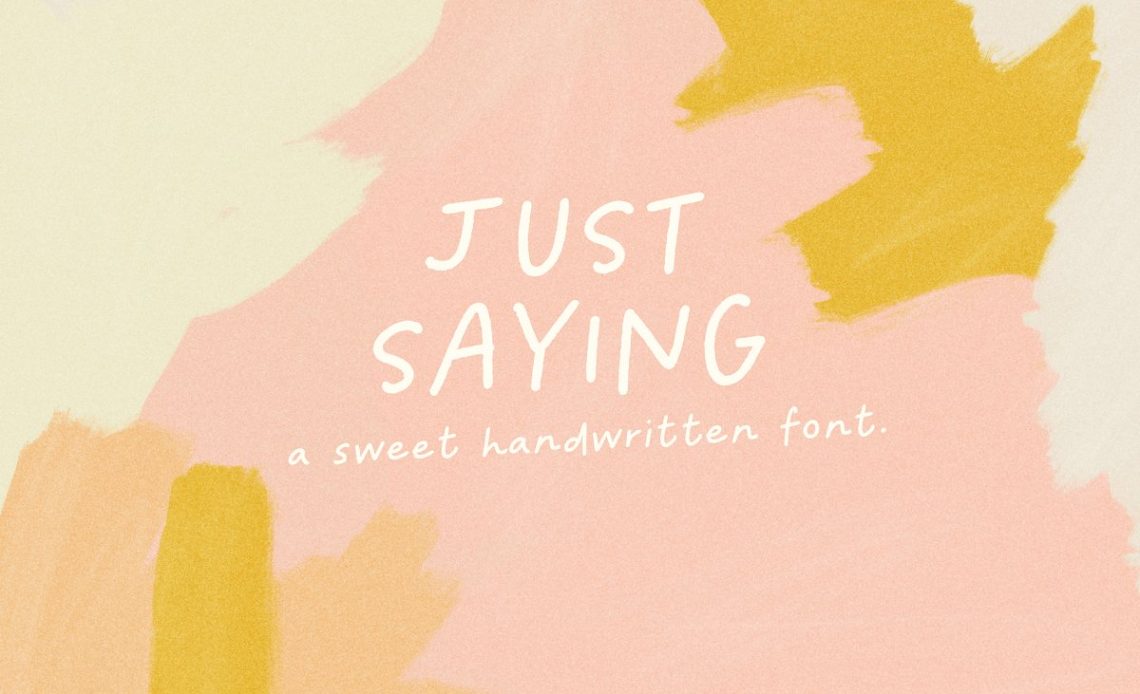
Welcome to 'Just Saying Handwritten Font' - the perfect font to add personality and charm to your designs. Created by the talented Nicky Laatz, this font family includes six unique variants that vary in weight and slant, allowing you to pick the perfect fit for your project.
But that's not all! In addition to the font, you'll also receive the 'Just Saying Dingbats' font - filled with cute and playful doodles that will add a touch of whimsy to your work.
But what makes this font so special? Well, it's all in the details. The hand-drawn letters have a natural flow and imperfection, adding an organic and personal touch to your designs. Plus, the ability to adjust letter spacing allows you to create a wide range of looks and styles.
Looking for inspiration? 'Just Saying' is perfect for crafting stellar quotes, handwritten notes, and sweet greeting cards. And if you're in the branding business, this font is sure to make your designs stand out from the crowd.
But don't just take our word for it - playing with this font is addictive! You'll find yourself constantly coming up with new and creative ways to incorporate it into your designs.